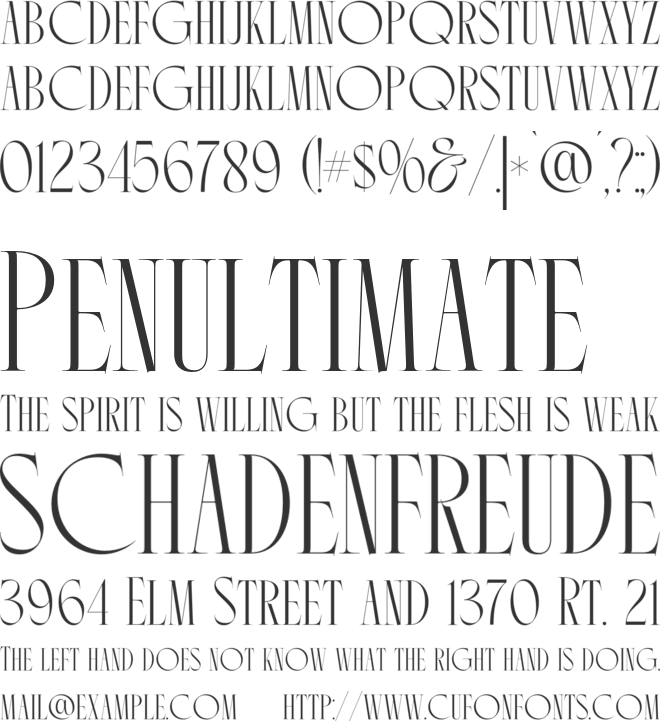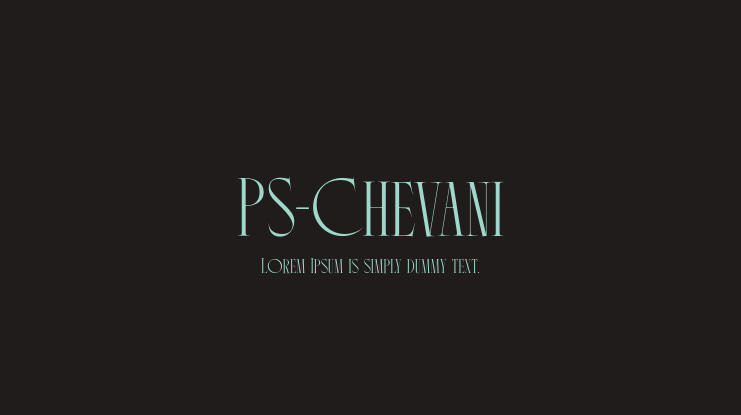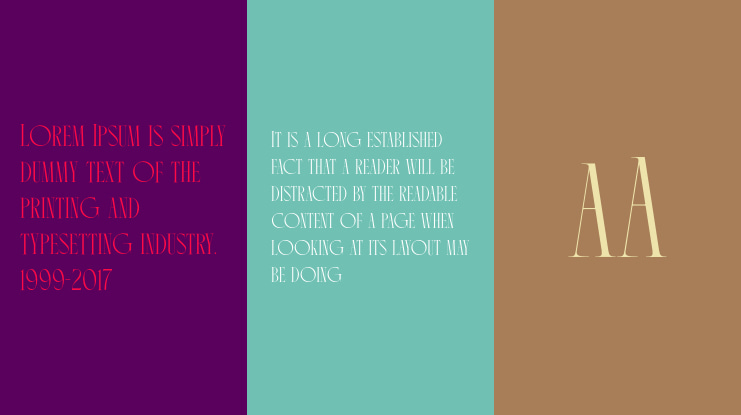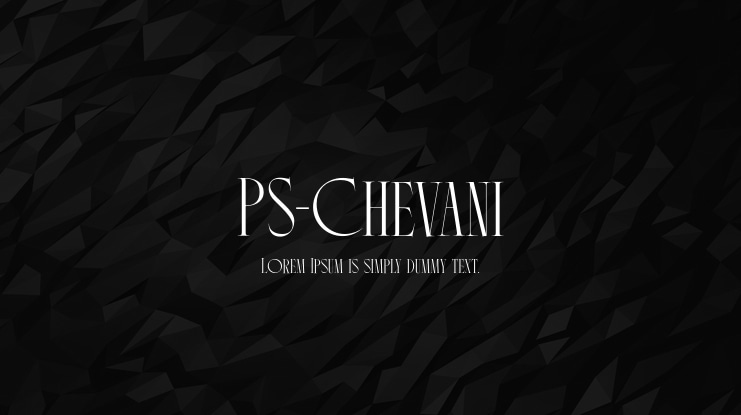
PS-Chevani Font
This  is a modern serif typeface created by Surplus Type Co with light weight anatomy. This font includes a variety of alternate characters that are significantly wider than standard characters in order to create dramatic headlines & titles.
Chevani also features a nice selection of custom ligatures which makes it even more versatile!